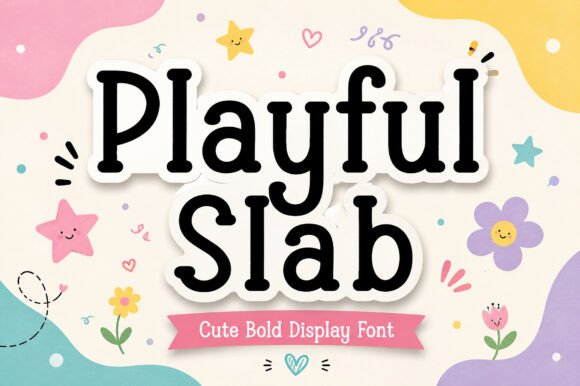
Playful Slab: A Fun and Friendly Font
Playful Slab is a display font that brings a sense of joy and creativity to any design. With its rounded edges, bold letterforms, and whimsical style, it’s perfect for projects that need a cheerful and eye-catching look. Whether you're designing for kids, creating social media graphics, or working on a branding project, Playful Slab adds warmth and personality to your work.
This font blends the charm of playful typography with the strength of a slab serif. The result is a design that feels both friendly and strong, making it ideal for headlines, logos, and other prominent text elements. Its bold and highly readable characters ensure that your message stands out without losing clarity.
Why Choose Playful Slab?
If you're looking for a font that can bring a smile to your audience, Playful Slab is an excellent choice. It's designed with a friendly and approachable feel, which makes it perfect for projects aimed at children, families, or anyone who appreciates a bit of fun in their design.
For educators, this font can make classroom materials more engaging. For small business owners, it can help create eye-catching product packaging or marketing materials. And for creators, it offers a way to add a personal touch to stickers, greeting cards, or digital graphics.
One of the key benefits of Playful Slab is its versatility. It works well in both digital and print formats, making it suitable for a wide range of applications. From social media posts to printed merchandise, it maintains its charm and readability across different mediums.
Where to Use Playful Slab
Playful Slab is ideal for a variety of creative and commercial uses. Here are some common examples:
- Children's books: Its friendly appearance helps capture the attention of young readers.
- Classroom materials: Teachers can use it to make worksheets, flashcards, or bulletin boards more visually appealing.
- Cricut projects: Crafters love using it for custom stickers, signs, and decorations.
- Toy packaging: It adds a playful touch that appeals to both kids and parents.
- Nursery decor: It brings a warm and inviting vibe to baby rooms and play areas.
- Greeting cards: Perfect for adding a personal and cheerful touch to messages.
- Social media graphics: It stands out in feeds and helps your content grab attention.
- Branding: Businesses looking for a fun and approachable image can use it in logos and promotional materials.
Whether you're working on a personal project or a professional one, Playful Slab can enhance your designs with its unique style.
Practical Tips for Using Playful Slab
Before using Playful Slab, consider the context and purpose of your design. While it’s great for headlines and logos, it may not be the best choice for long blocks of text due to its decorative nature.
It’s also important to test the font in different sizes and settings. What looks good on a large poster may not work as well on a small business card. Always check how it appears in both digital and print formats.
When pairing Playful Slab with other fonts, choose complementary styles that don’t clash. A simple sans-serif or serif font can balance its playful character and improve overall readability.
Playful Slab in Real-World Projects
Let’s look at a few real-world examples of how Playful Slab can be used effectively:
- Marketing campaigns: A local bakery might use Playful Slab for a holiday promotion, adding a festive and welcoming feel to their posters and social media ads.
- Personal branding: A lifestyle blogger could use it in their website headers or Instagram stories to create a consistent and cheerful visual identity.
- Print-on-demand products: T-shirt designers often use it for slogans or illustrations that need a fun and friendly look.
- Event invitations: For a kids' birthday party, Playful Slab can make the invitation more exciting and engaging.
- Education tools: A teacher might use it in a lesson plan or classroom sign to make learning more interactive and enjoyable.
These examples show how versatile and effective Playful Slab can be when used thoughtfully.
Final Thoughts on Playful Slab
Playful Slab is more than just a font—it’s a tool for expressing creativity and emotion in design. Its friendly and bold style makes it a standout choice for anyone looking to add a touch of fun to their work. Whether you’re a designer, educator, entrepreneur, or hobbyist, this font has something to offer.
By understanding its strengths and limitations, you can make the most of Playful Slab in your projects. With the right approach, it can help your designs stand out while maintaining clarity and professionalism.